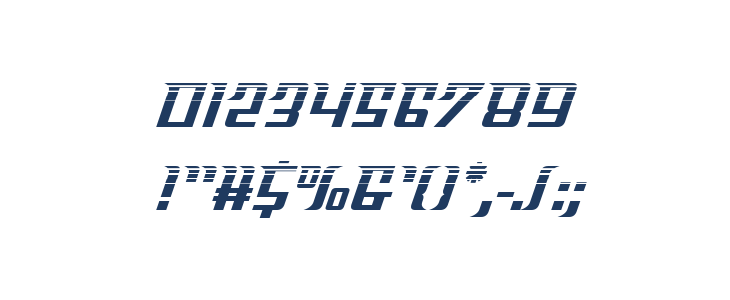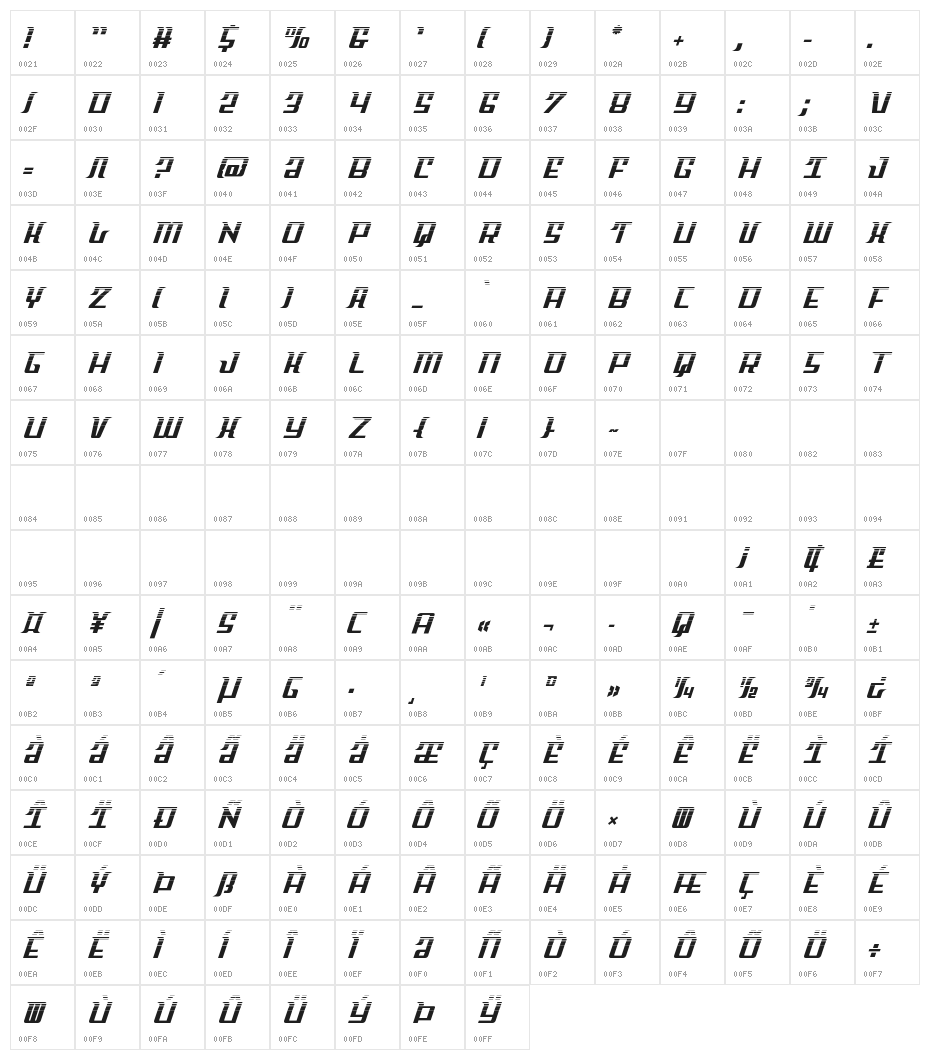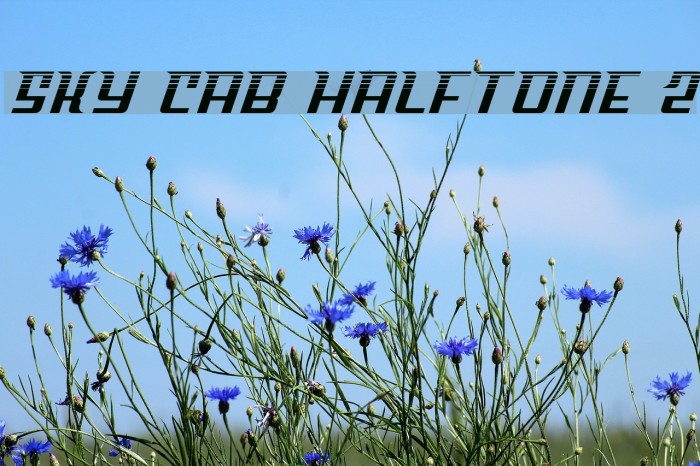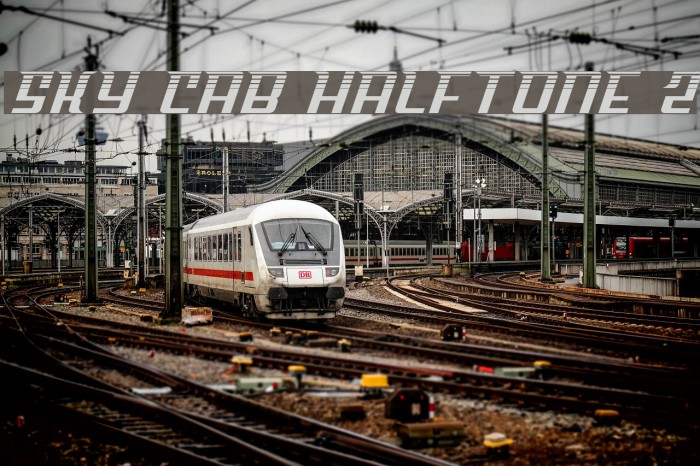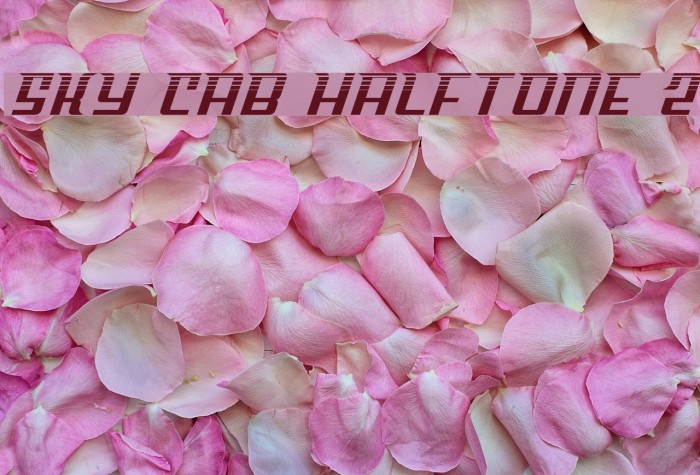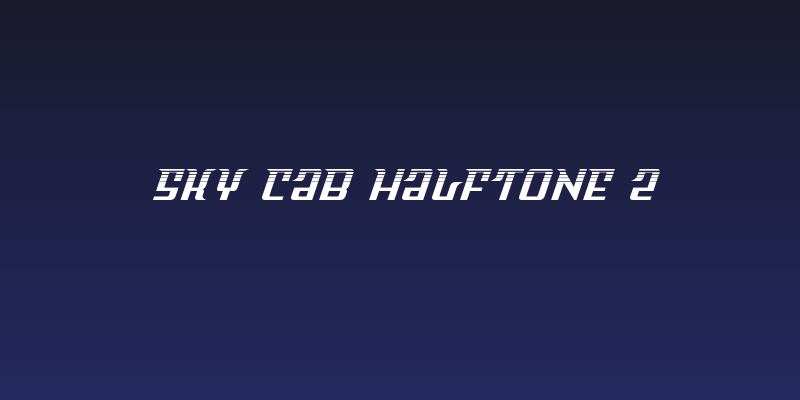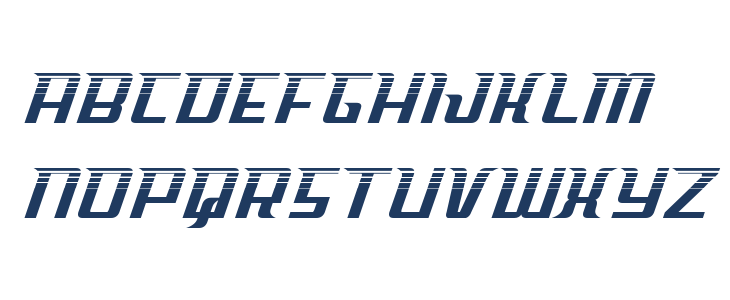
Sky Cab Halftone 2 Font
Sky Cab Halftone 2 Description
This font features a bold, futuristic design with a halftone effect that gives it a dynamic, high-tech appearance. The characters are slanted, adding a sense of motion and speed, while the horizontal lines create a unique texture that enhances its modern aesthetic. The uppercase and lowercase letters maintain a consistent style, with sharp angles and clean lines. Numbers and special characters are equally stylized, ensuring a cohesive look across all glyphs. This font is ideal for projects that require a strong, impactful visual presence.
| Proposed Projects | Ideal for technology branding, sci-fi themed designs, video game titles, and modern advertising. |